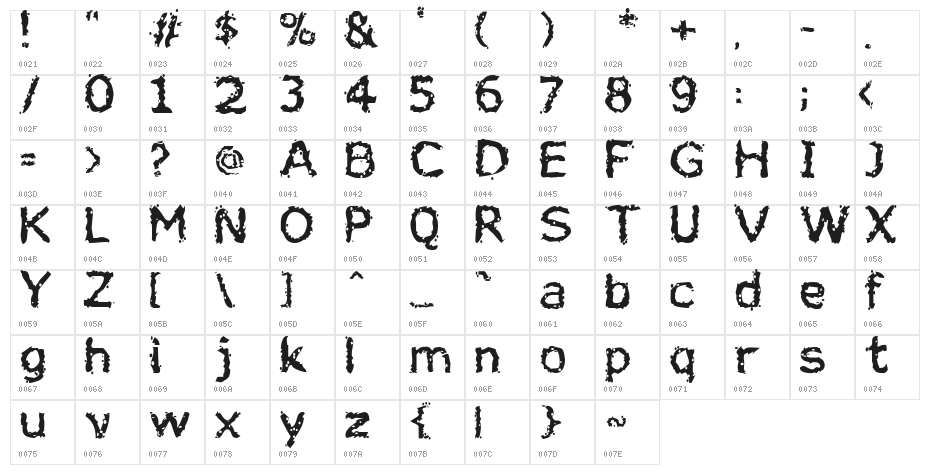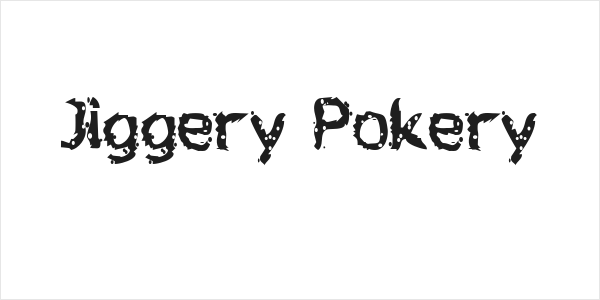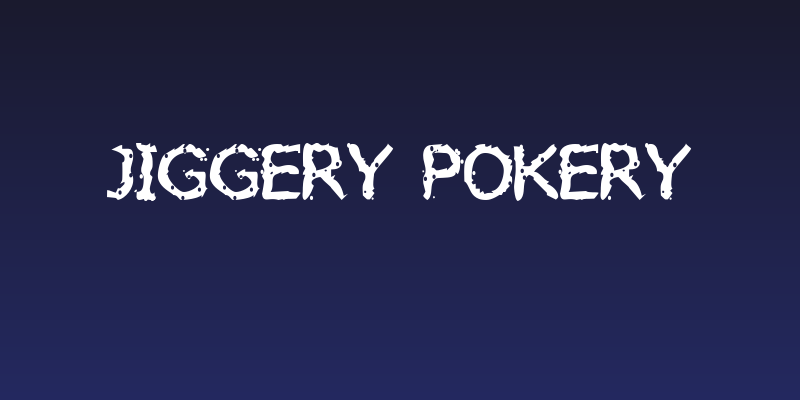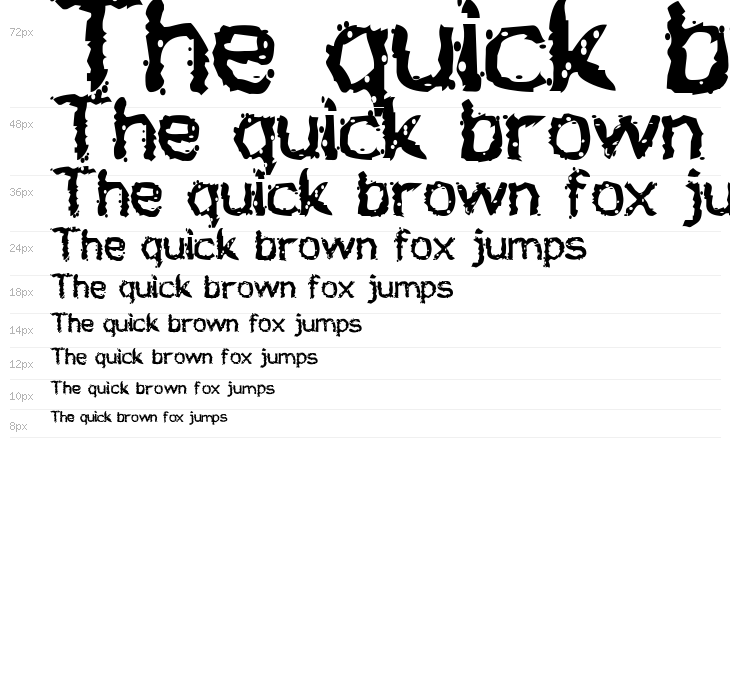
Jiggery Pokery Font
Jiggery Pokery Description
This font features a playful and chaotic design, characterized by irregular, splattered edges that give it a grungy and distressed appearance. The letters are bold and have a hand-drawn feel, with varying thicknesses that add to its dynamic look. The uppercase and lowercase letters maintain a consistent style, while the numbers and special characters follow the same aesthetic, making it suitable for creative and unconventional projects. Its unique style makes it stand out, perfect for designs that require a touch of whimsy or rebellion.
| Proposed Projects | Ideal for album covers, posters, graffiti art, and edgy branding projects. |